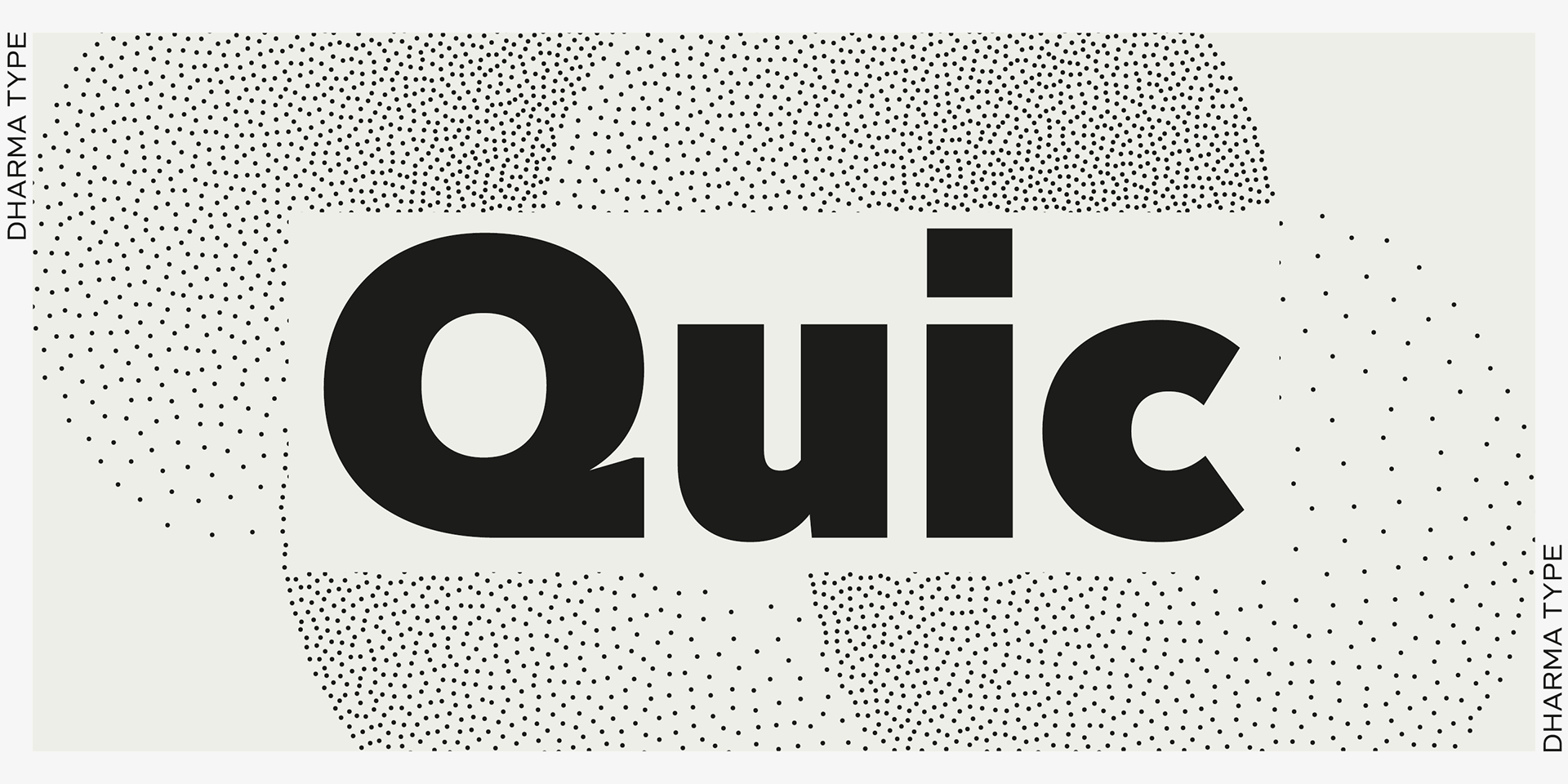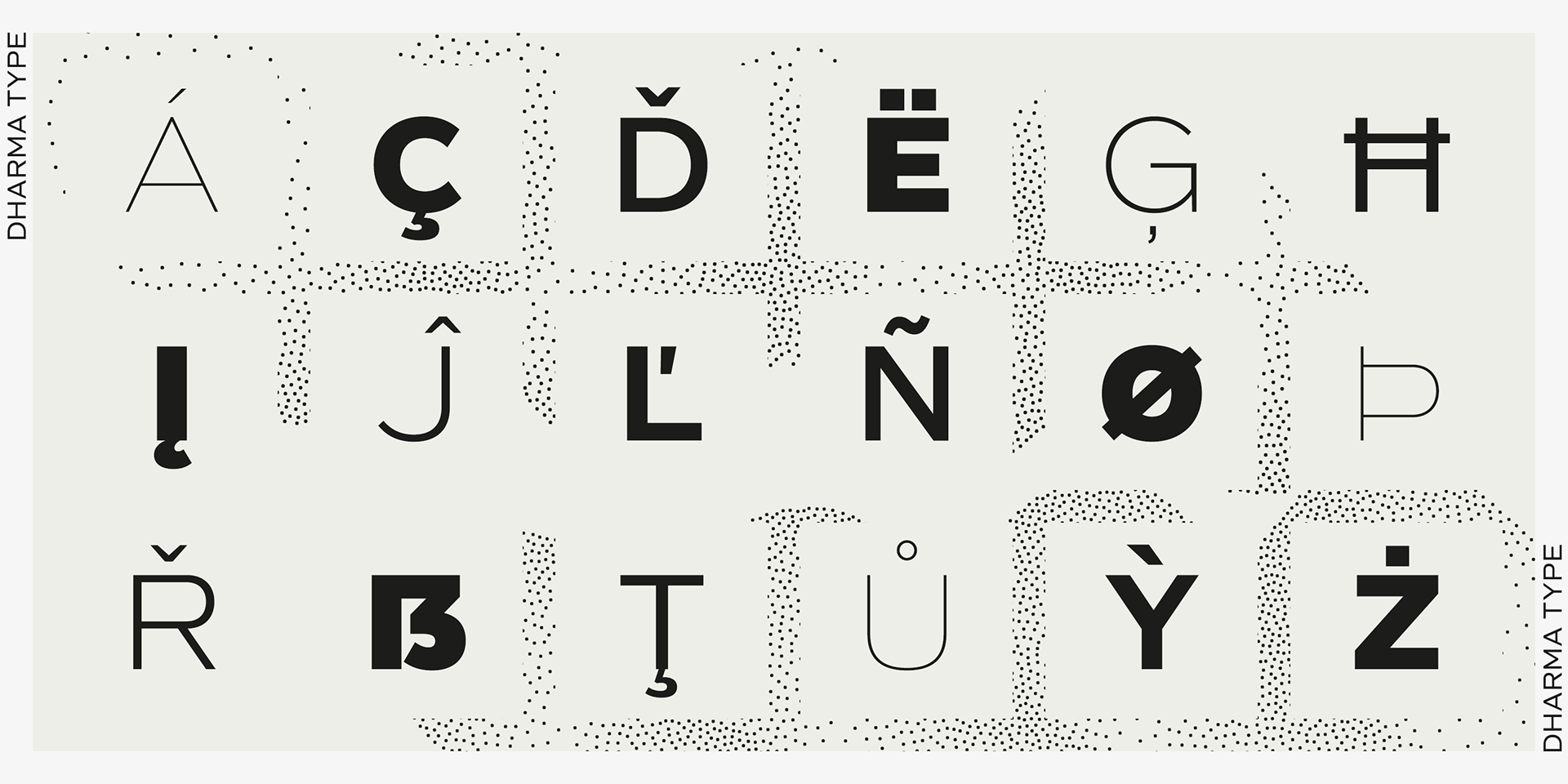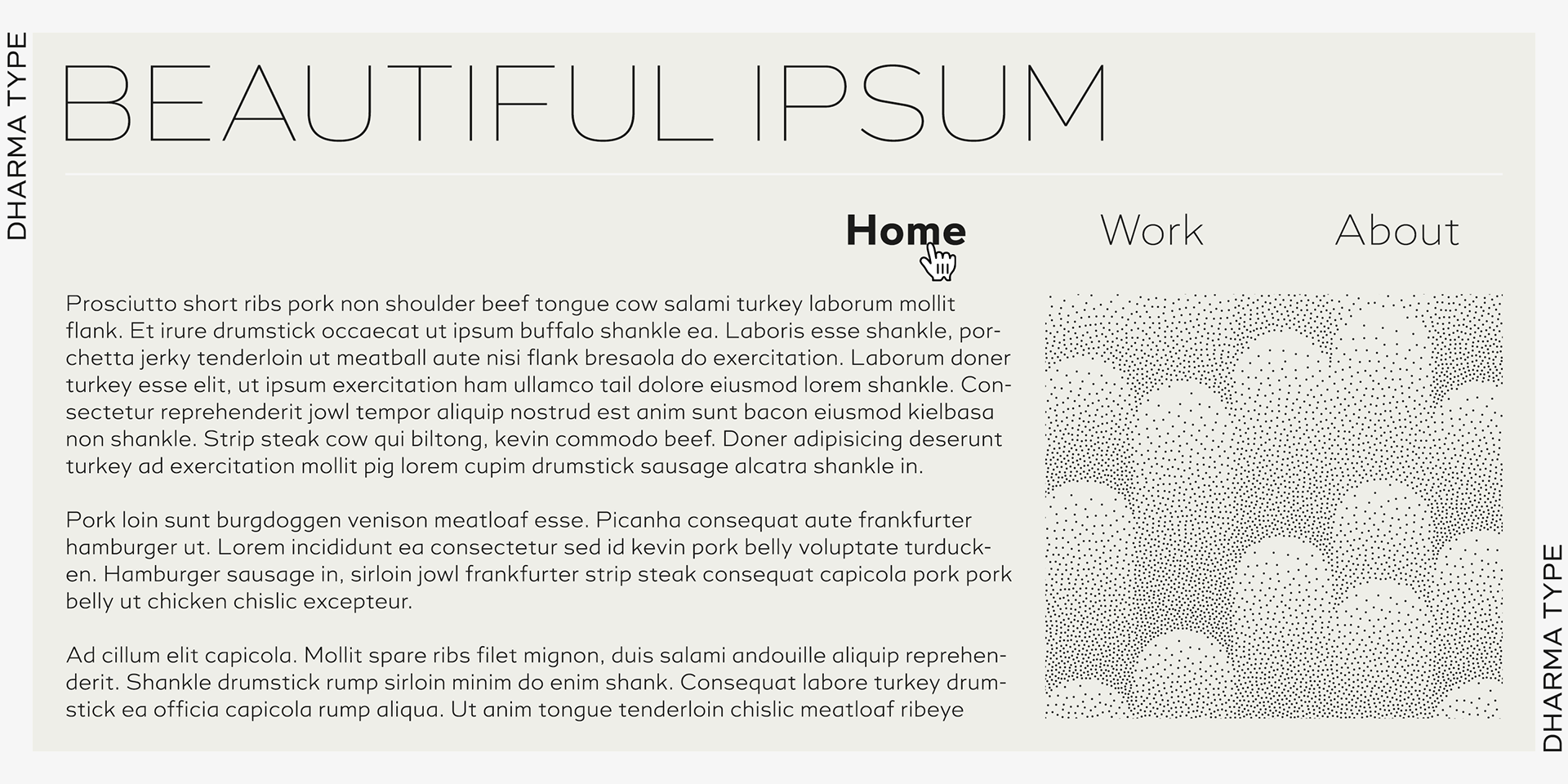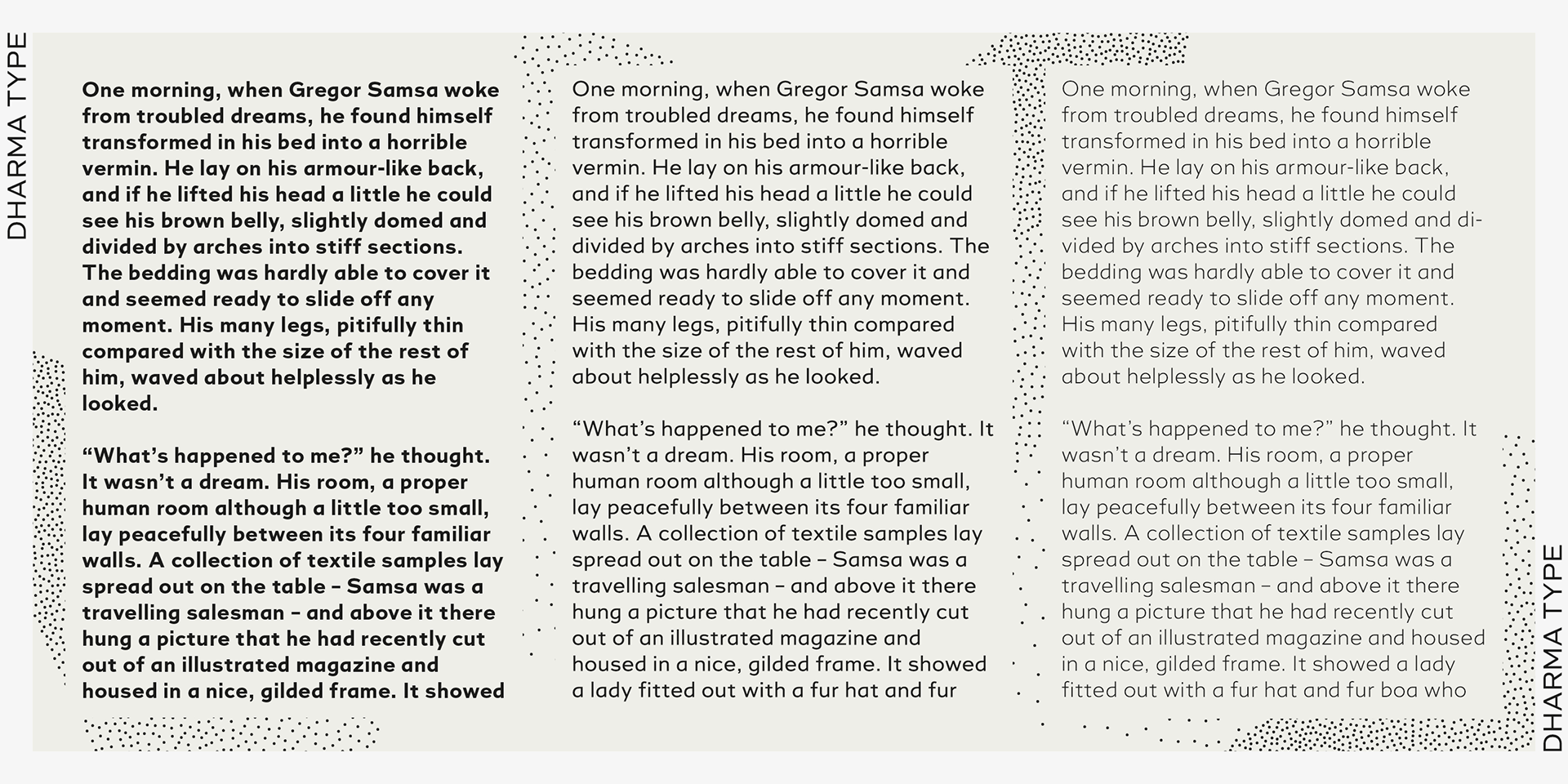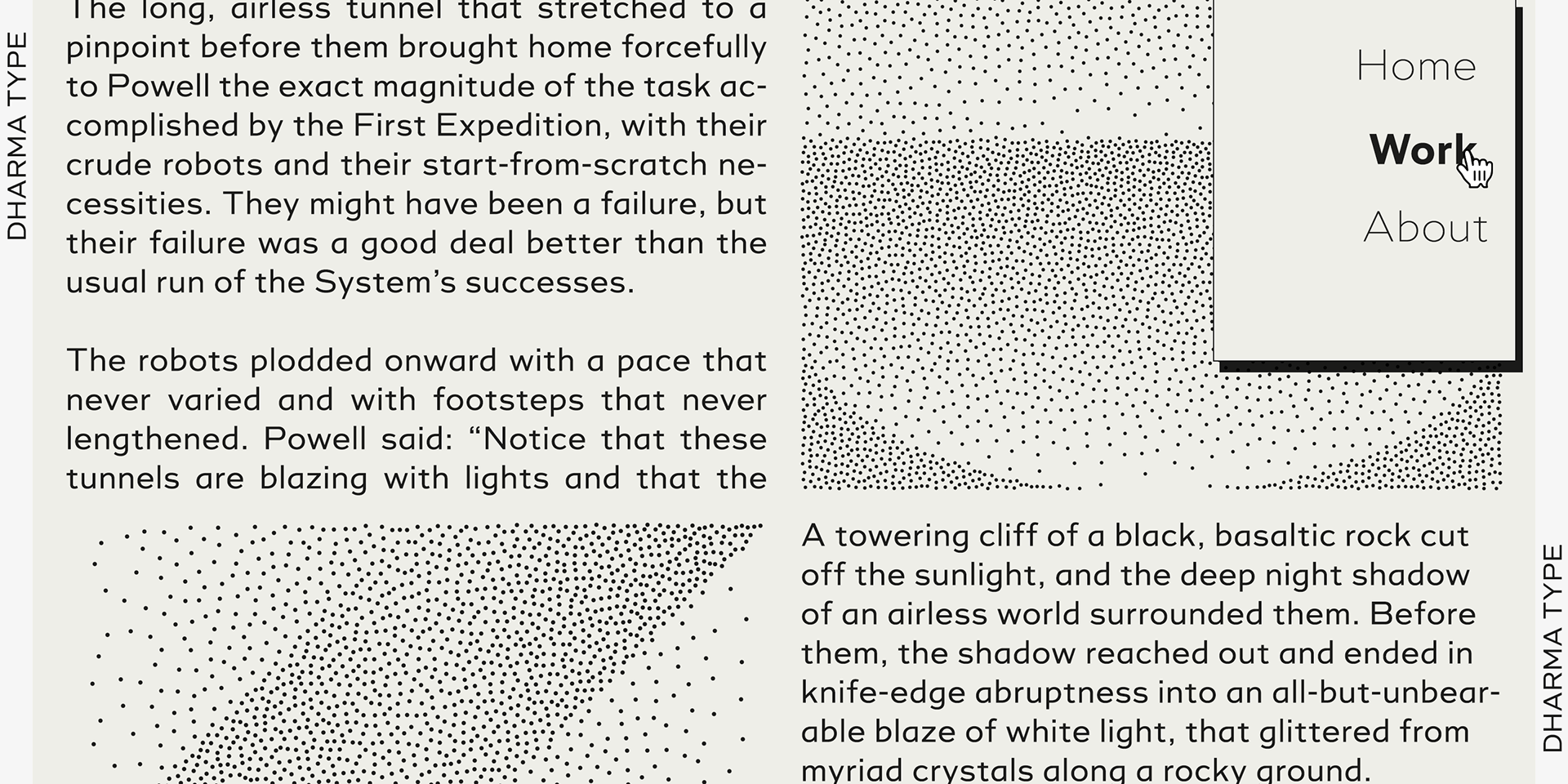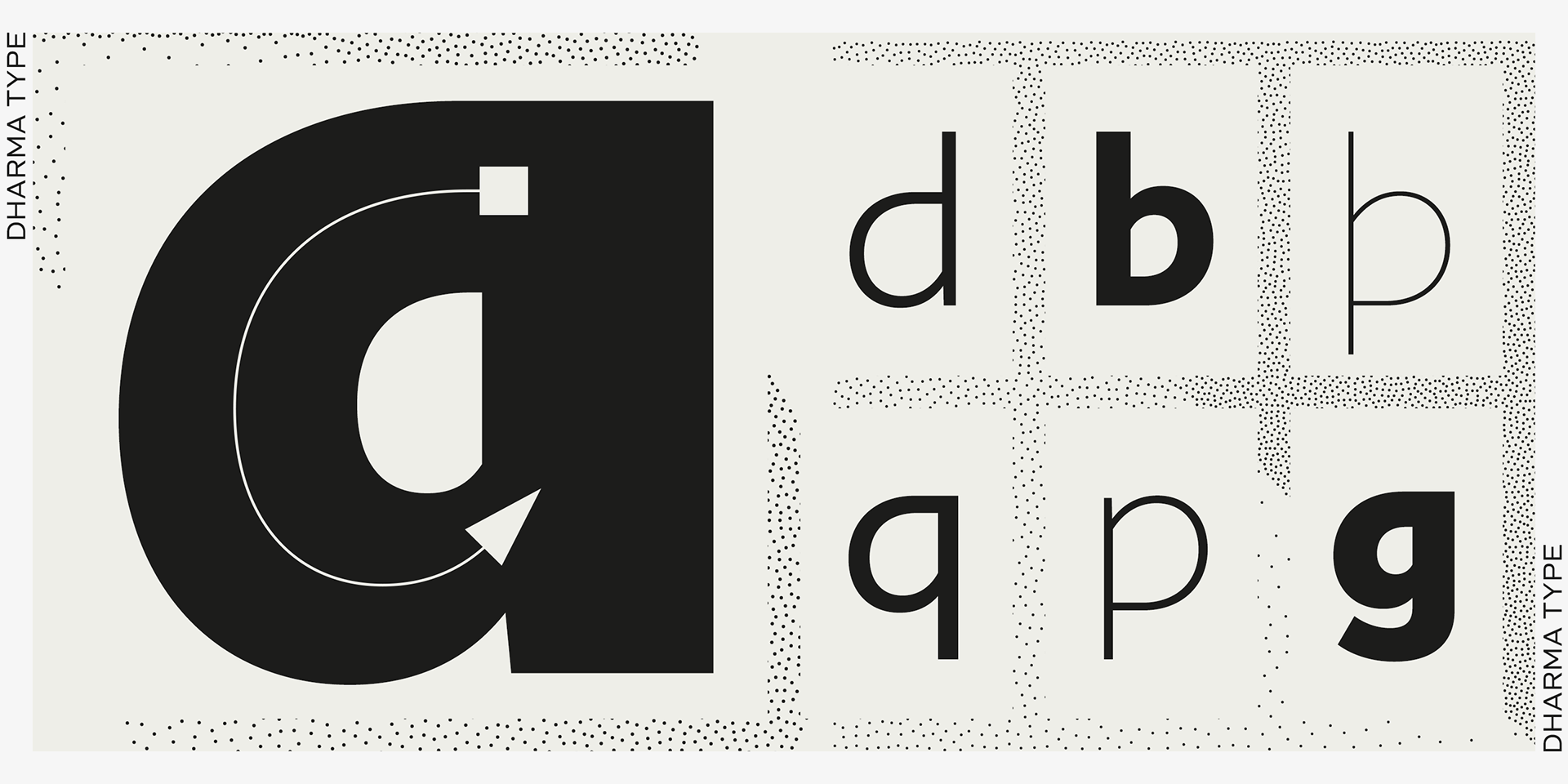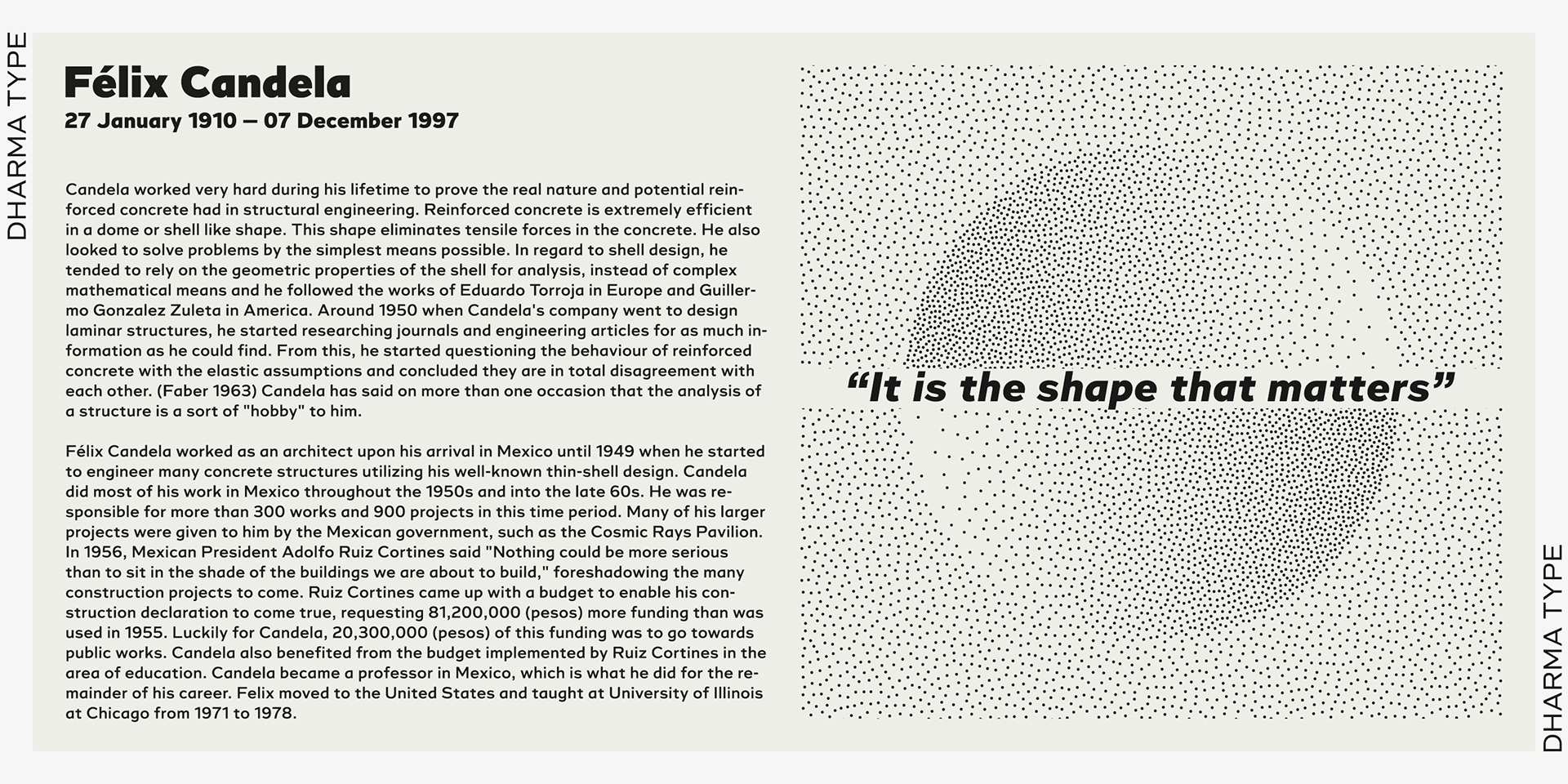
Quic
This typeface is primarily constructed on a foundation of simple geometric forms. What distinctly differentiates it from other typefaces, however, is the treatment of characters such as a, b, and g, which draw inspiration from rapid, fluid strokes often seen in cursive handwriting and expressive brushwork.
This unique approach lends the typeface a sense of lightness, clarity, and understated sophistication.
While typefaces with similar qualities have emerged periodically since the 2000s, few exhibit the same level of refinement or the uncompromising pursuit of a singular design vision as this one.
The typeface family comprises eight weights, each accompanied by a matching italic, and offers broad language support across Latin-based scripts.